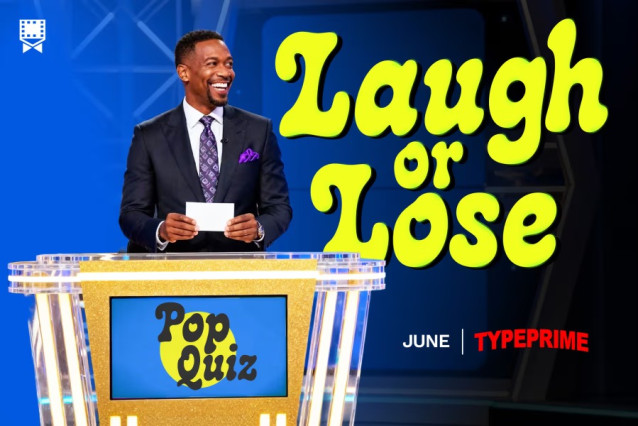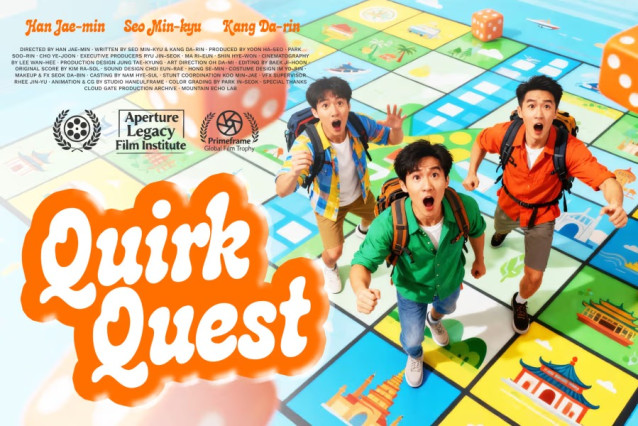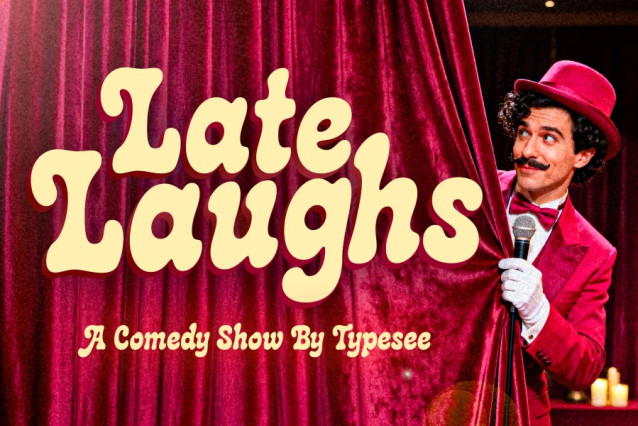
Late Laughs Font
Late Laughs Font is a playful retro display font with bubbly curves and charming vintage flair perfect for comedy posters, fun branding, and cheerful visual identities.Late Laughs is a bold and joyful retro display font designed to bring personality and humor into your projects. Inspired by classic comedy clubs, vintage show posters, and hand drawn lettering, this font features soft, rounded shapes and expressive curves that radiate warmth and fun.Whether you’re creating a comedy show poster, YouTube thumbnail, branding for playful products, or retro-themed designs, Late Laughs delivers a lively visual punch. It includes uppercase, lowercase, numerals, punctuation, ligatures, and playful symbols making it flexible for both creative titles and quirky typography compositions.With its nostalgic yet modern charm, Late Laughs is the perfect choice for designers seeking a friendly, energetic, and crowd pleasing display font.